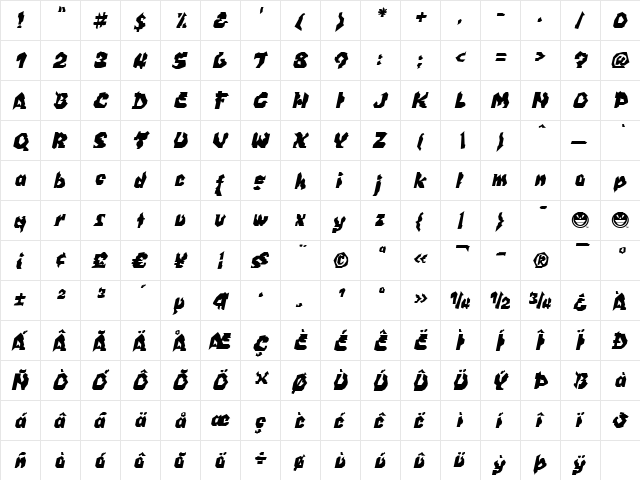
WILD1 Nobody Italic
Design Context for WILD1 Nobody Typeface
WILD1 Nobody is a composed and adaptable typeface that performs quietly and consistently across a wide range of design contexts. The slanted form adds forward momentum and visual energy.
Pro Tip: Use WILD1 Nobody for emphasis, pull quotes, and subheadings where its slanted energy can add rhythm to the layout.